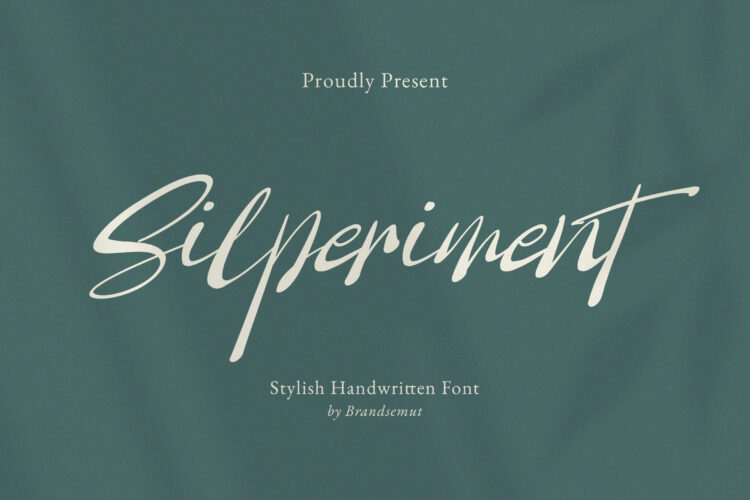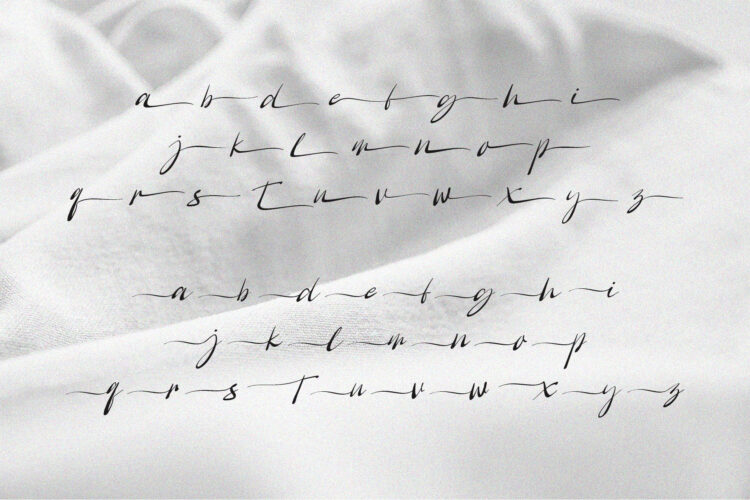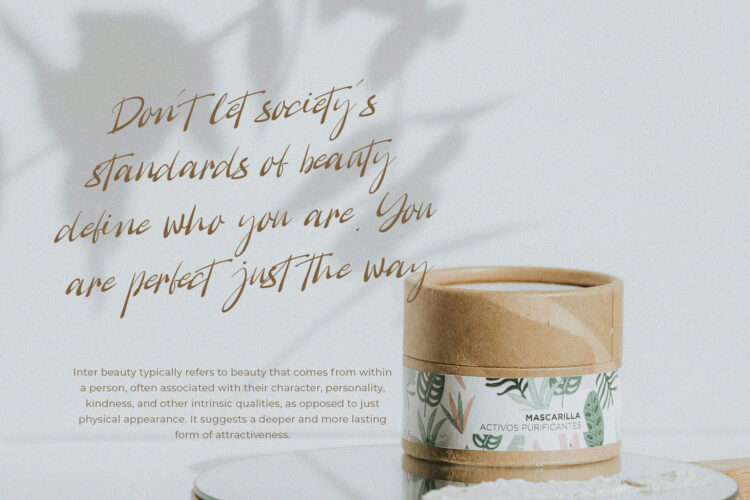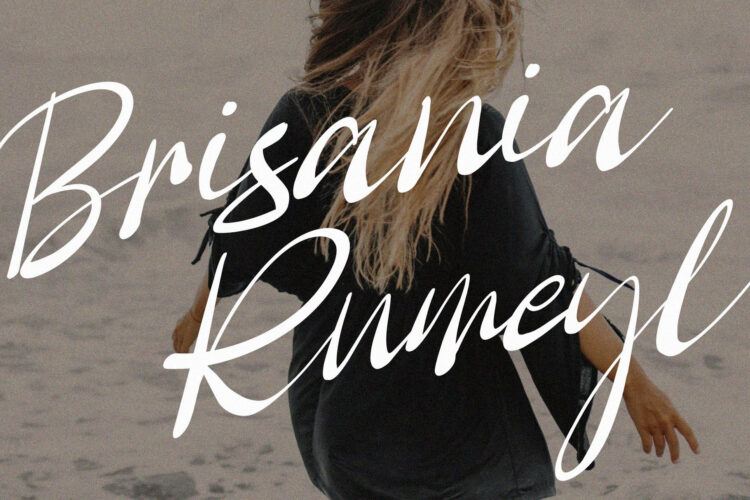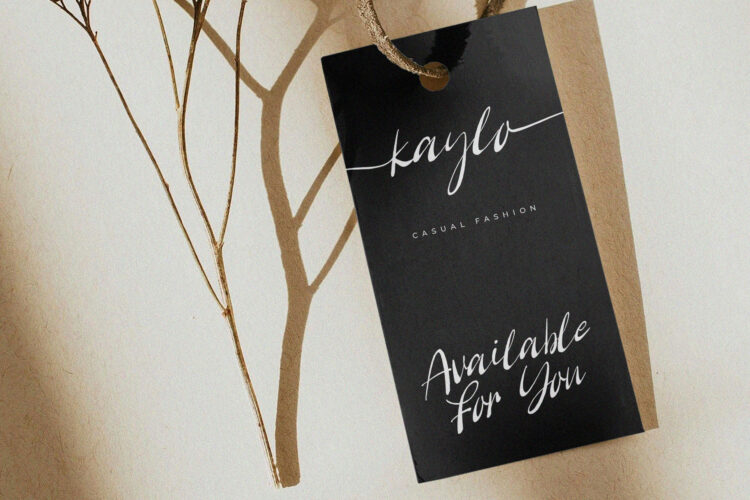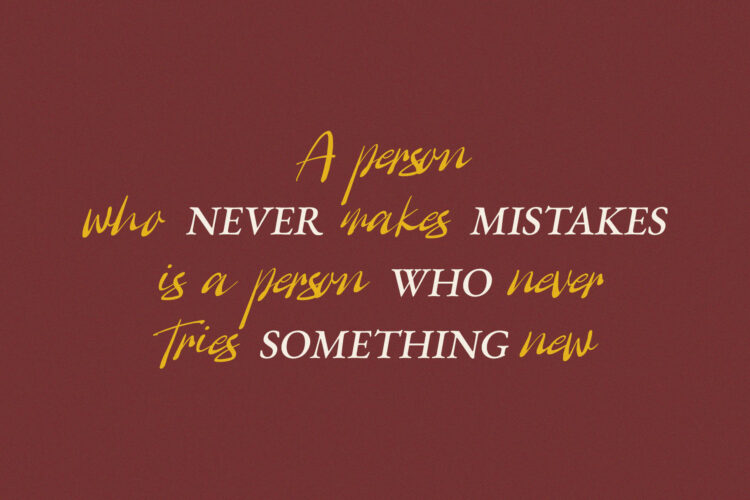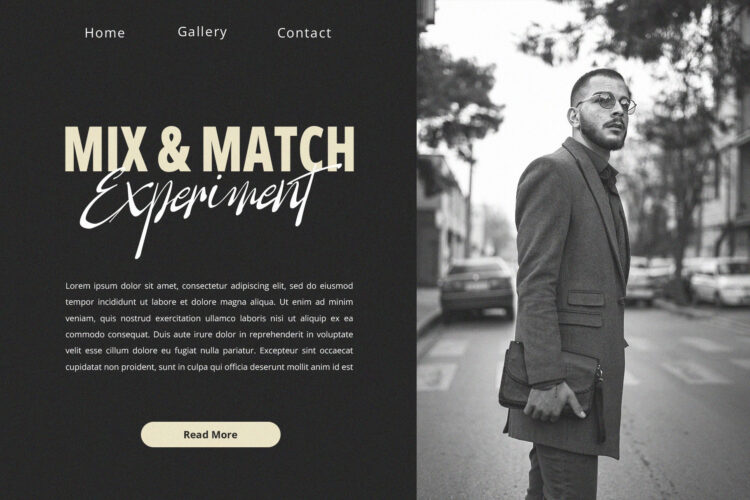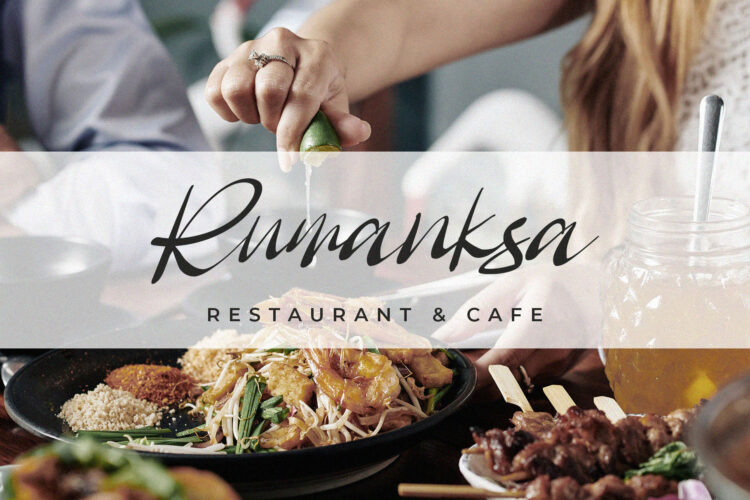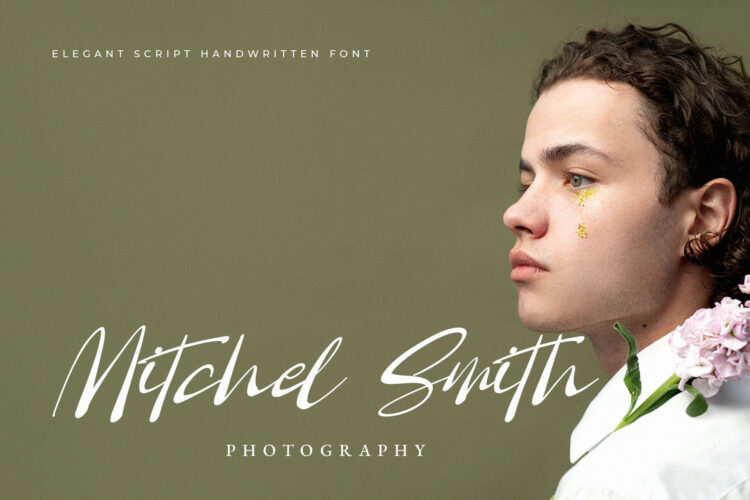
Introducing the new Silperiment Stylish Handwritten Font is a elegant and stylish handwritten script, that you can use to perfect your design.
Silperiment – Stylish Handwritten Font